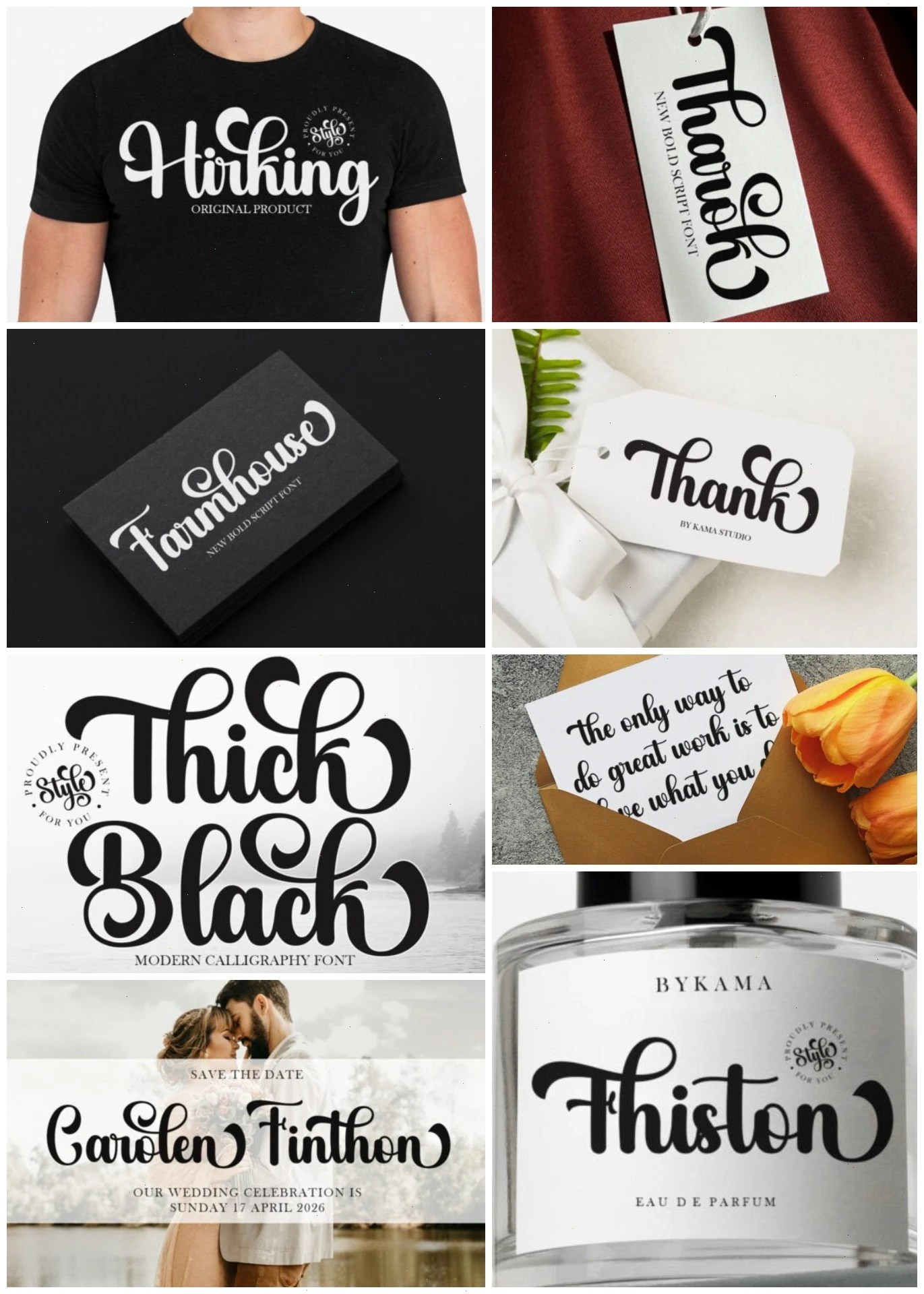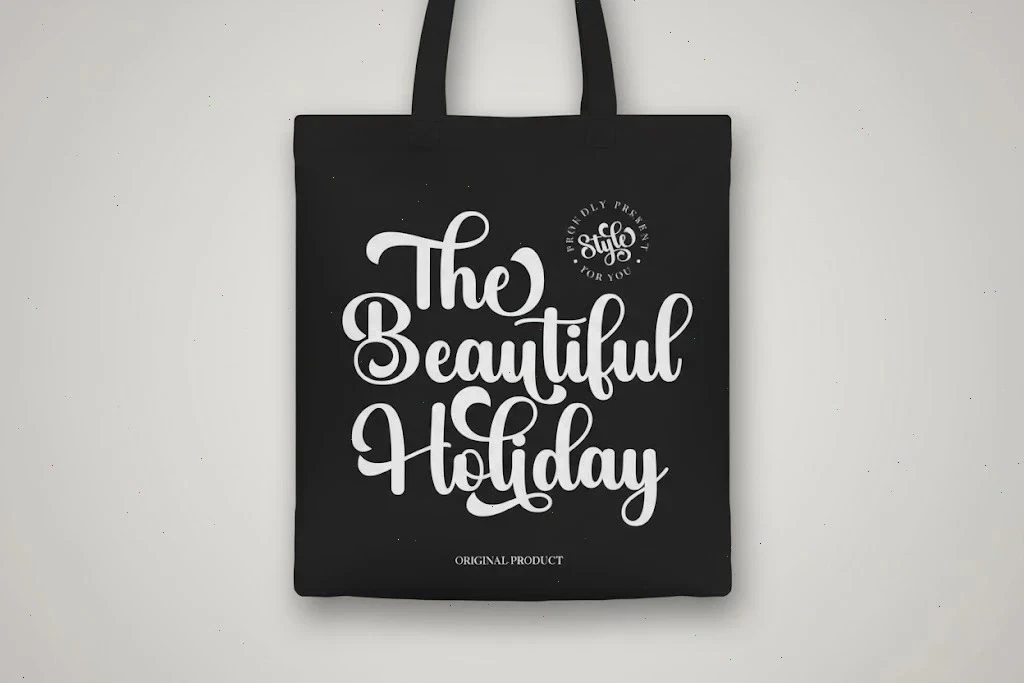
Thick Black – Elegant Calligraphy & Feminine Script Font
Thick Black is an elegant calligraphy script font with a feminine touch — perfect for weddings, branding, invitations, and luxury logo design
Thick Black is a handwritten calligraphy font that brings together style, a feminine touch, and modern luxury in each curve. Its strokes make it great for branding, logos, wedding invites, and fashion typography. Its soft but stylish cursive letters bring class to any visual identity, from signs and packaging to posters and sublimation prints. Whether you’re working on invites, Valentine’s projects, or branding, Thick Black is a great font to share warmth, creativity, and timeless beauty. With its calligraphy style, this font will improve your work, making every design feel special and professional.